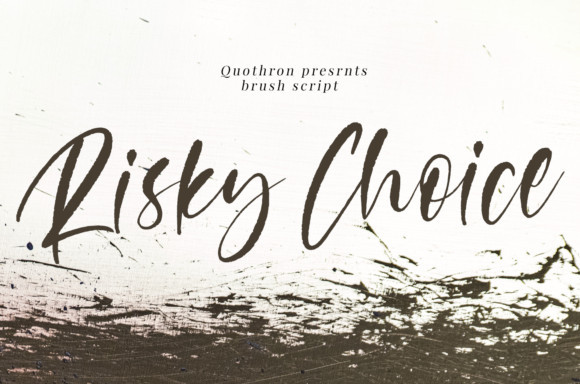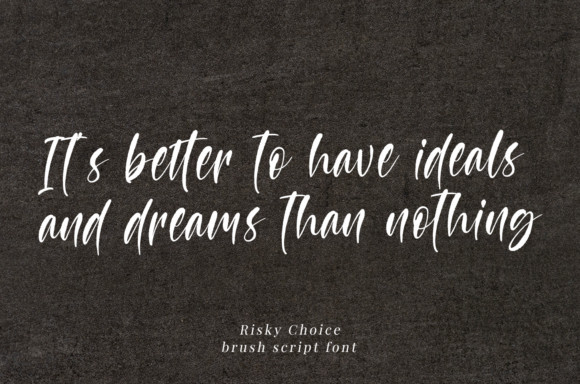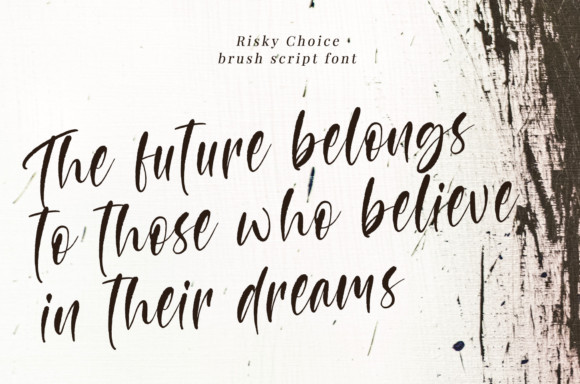
Risky Choice Font
Risky Choice is a relaxed and flowing handwritten font, described by an elegant touch, perfect for your favorite projects. Fall in love with its incredibly distinct and timeless style and use it to create spectacular designs!